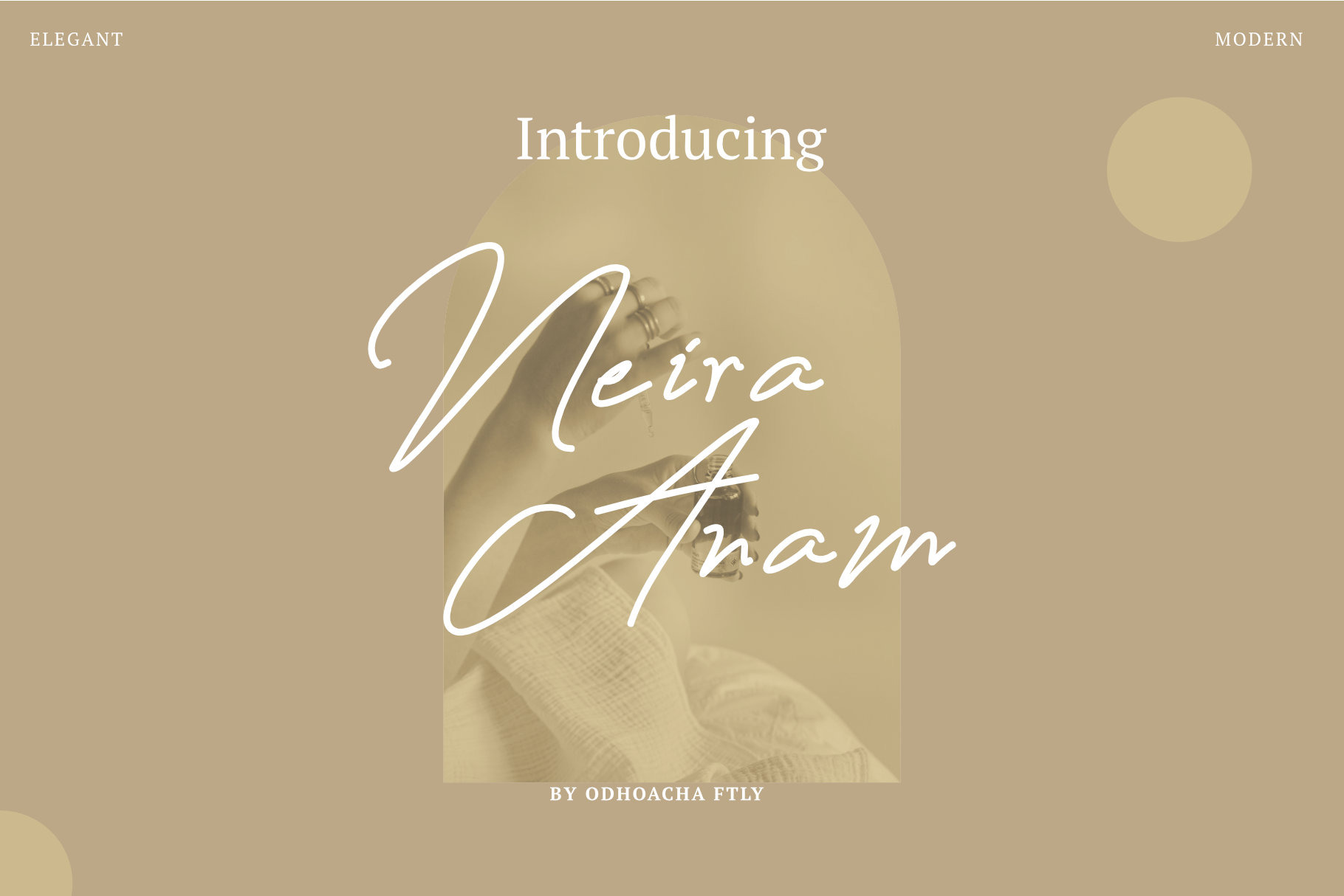
Neira - realistic handwritten font
Neira is a realistic handwritten font, described by an elegant touch, perfect for your favorite projects. Fall in love with its incredibly distinct and timeless style and use it to create spectacular designs!